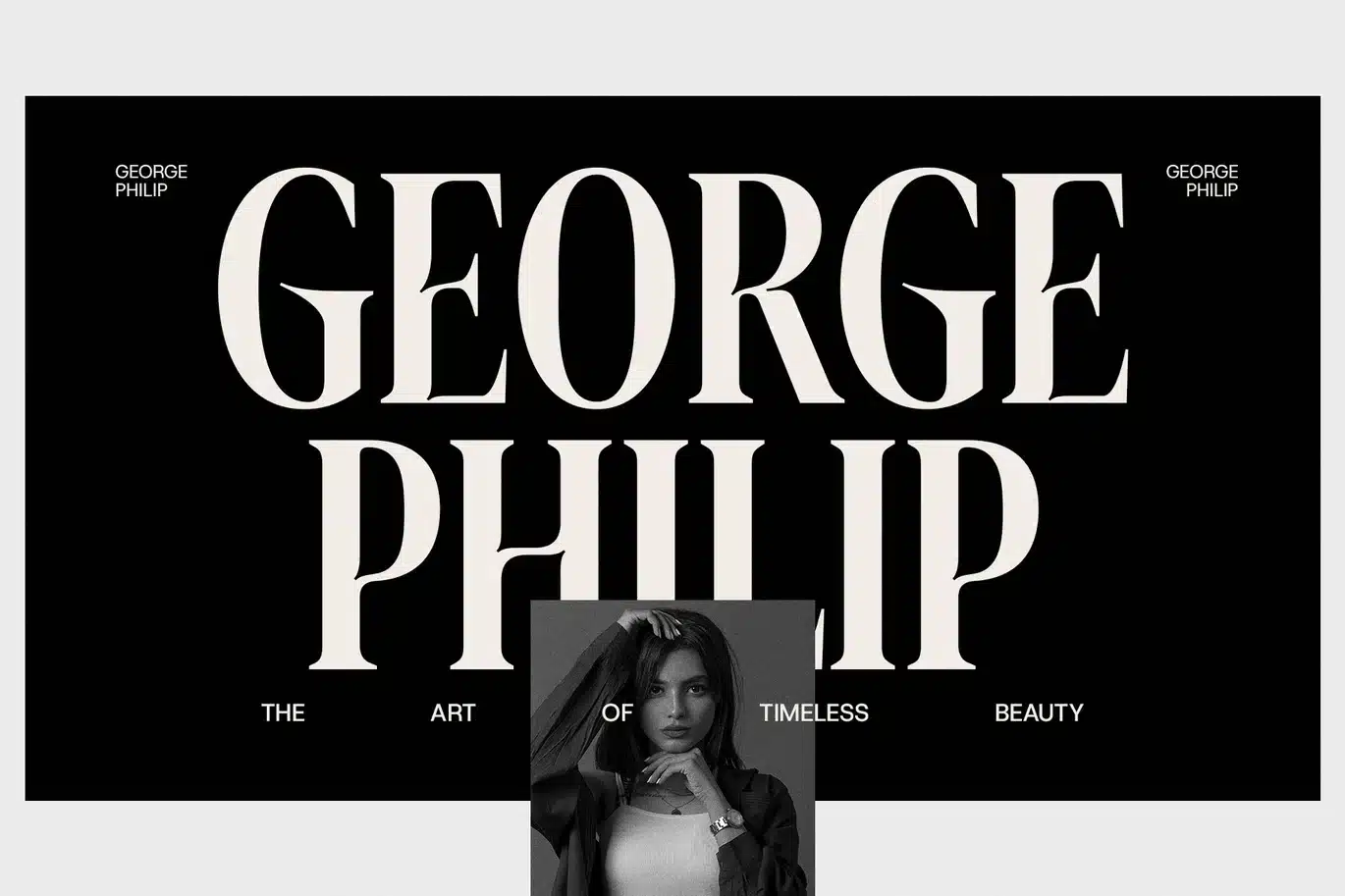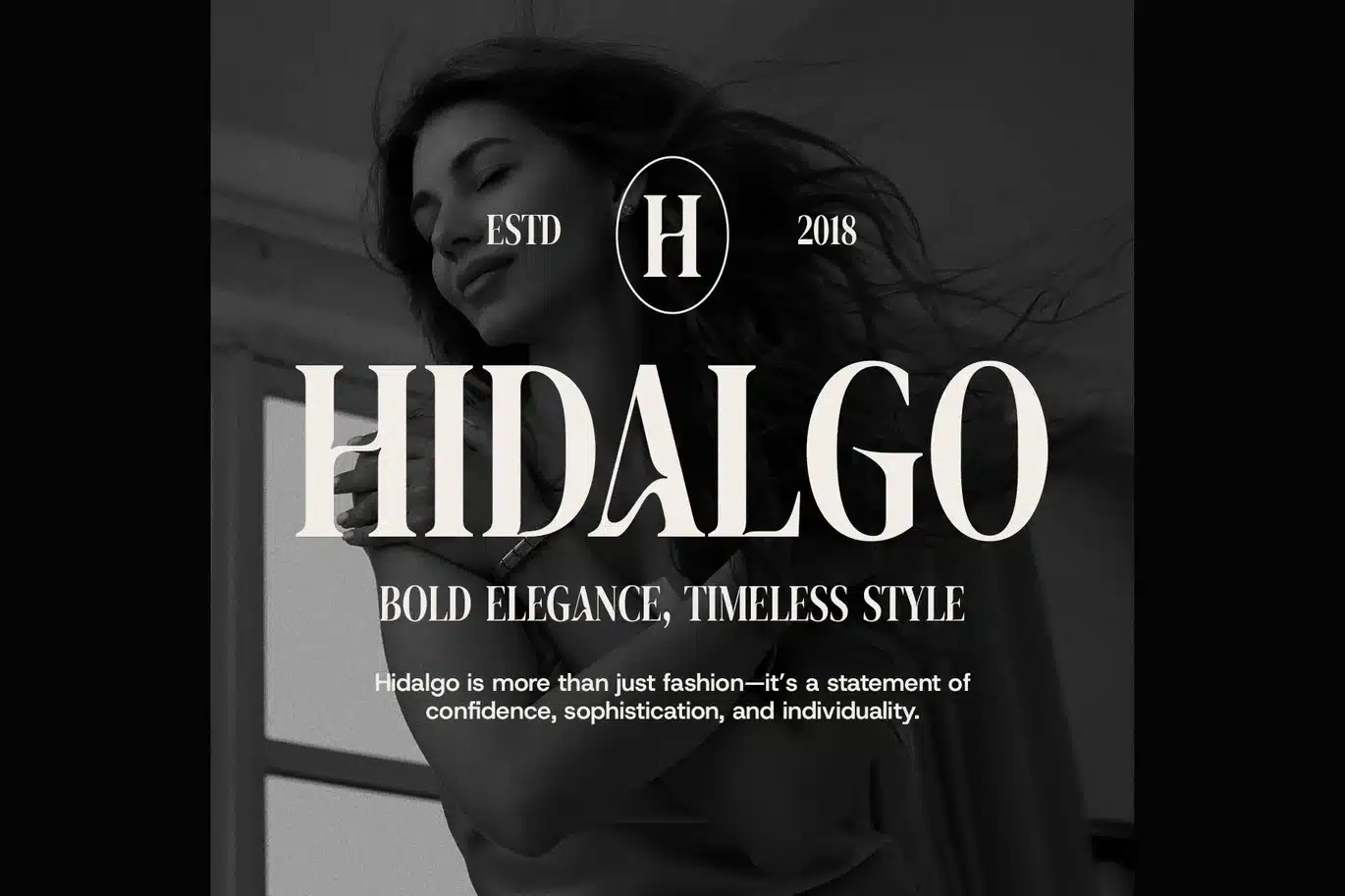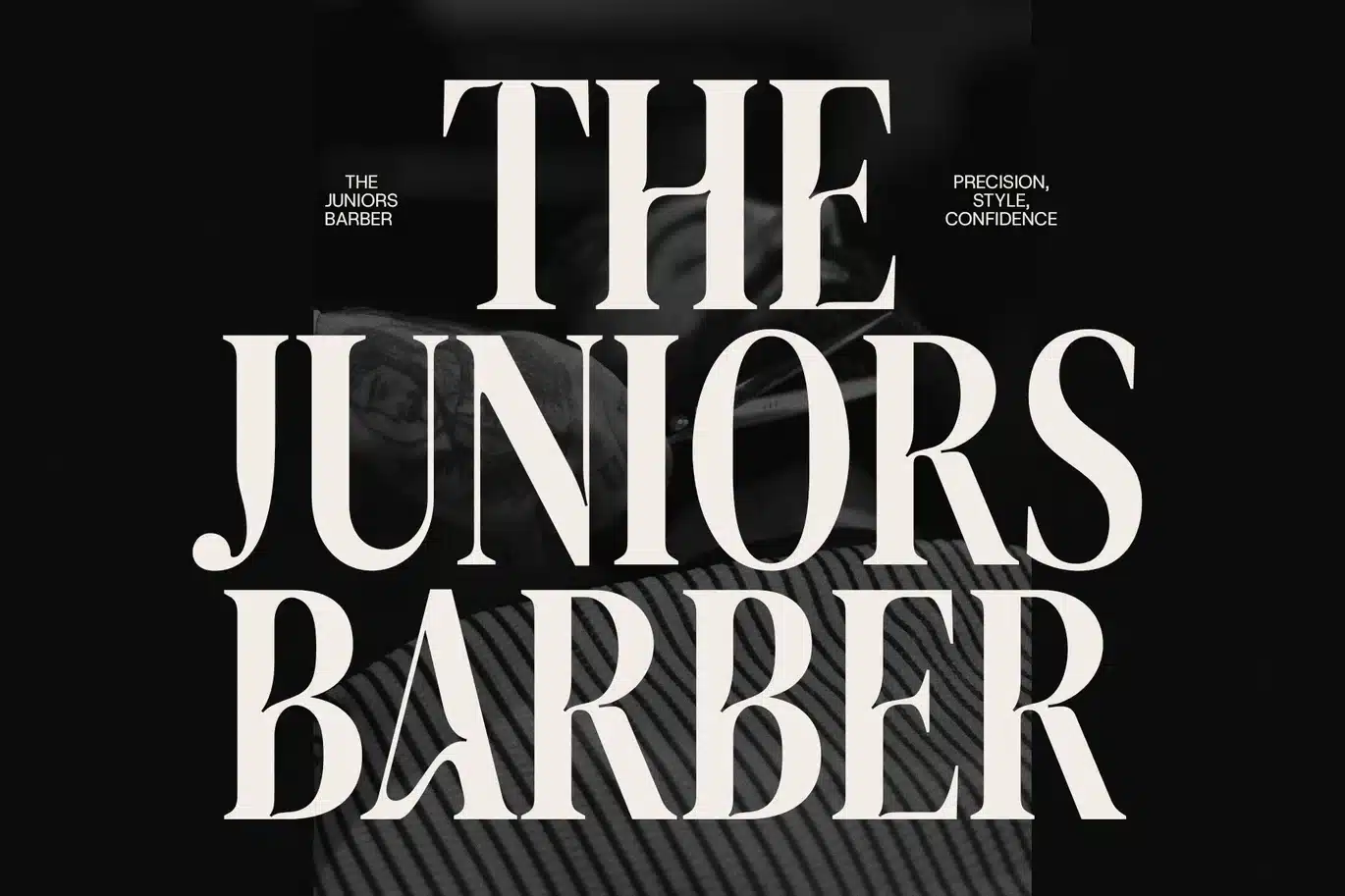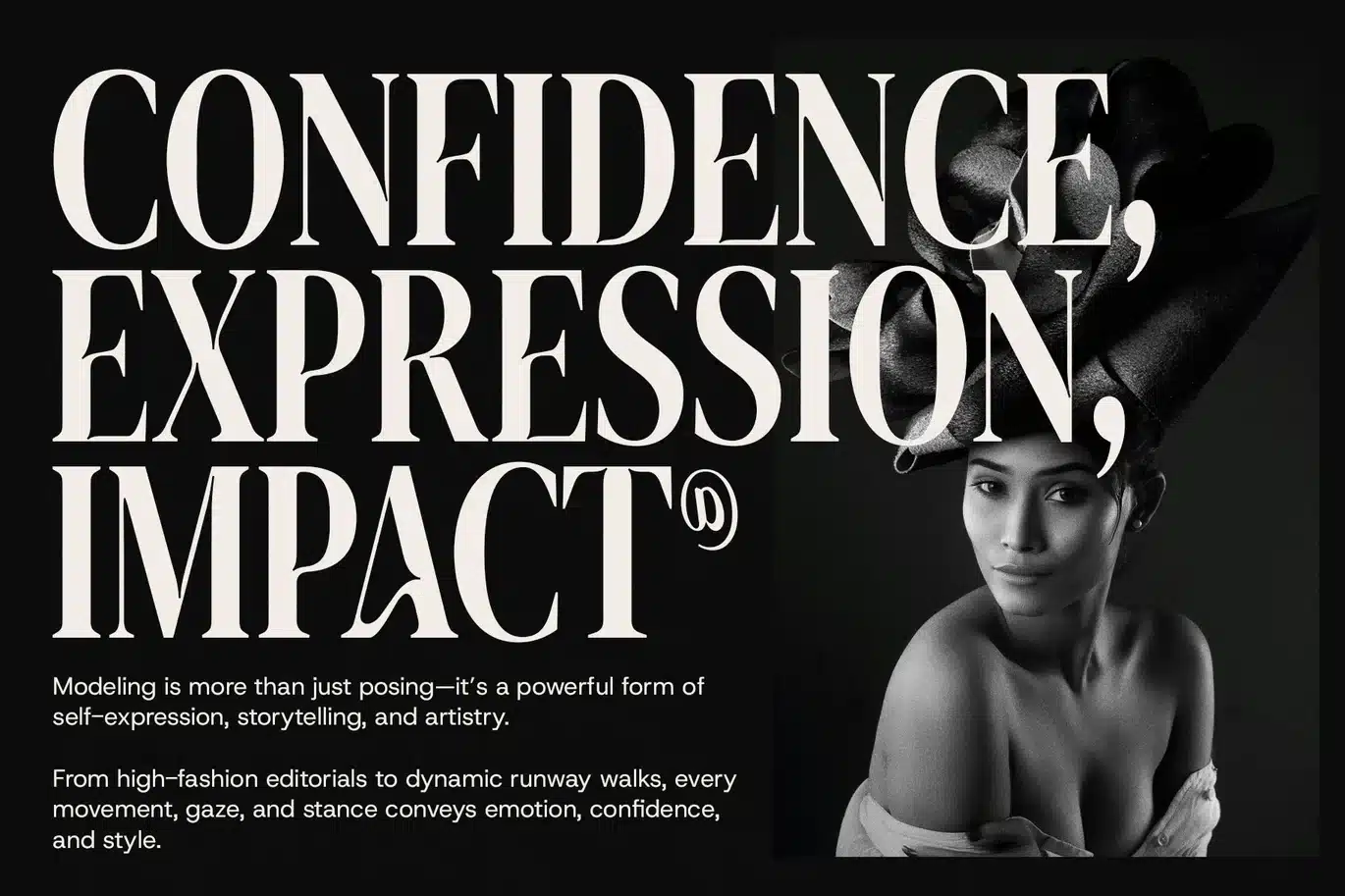
Artha Elegant Serif Font – Classic & Refined Style
Classic Elegance in Every Letter
Artha is an elegant serif font designed with timeless charm and refined details. Its classic style makes it ideal for projects that require sophistication and clarity. Therefore, Artha works beautifully for branding, editorial designs, invitations, and luxury packaging that demand a polished look.
Balanced and Clear Design
Moreover, Artha offers well-balanced letterforms with crisp serifs that improve readability. Whether used in large titles or small paragraphs, this font maintains a perfect harmony between style and legibility. Because of this, it is suitable for both print and digital use.
Key Features and Benefits
Here are some of Artha’s standout qualities:
Elegant serif font with sharp, clean edges
Well-proportioned letters for easy reading
Suitable for logos, headlines, and body text
Perfect for both print and digital projects
Adds a touch of sophistication to any design
Great for luxury, fashion, and editorial use
Combines classic serif with modern simplicity
Smooth and Flowing Letterforms
Additionally, Artha’s stroke contrasts guide the reader’s eye naturally. This smooth flow makes text pleasant to read while adding a refined feel. Furthermore, the font balances tradition and modernity, offering versatility for many design needs.
Versatile for Creative Projects
Finally, Artha is highly adaptable, fitting well into various styles. You can use it on its own to create strong, elegant statements or combine it with sans-serif fonts for layered designs. Overall, Artha is perfect for designers who want a serif font that blends beauty and function.
Choose Artha for your next project to add a classic, elegant touch. This font delivers clarity, sophistication, and timeless appeal in every use.